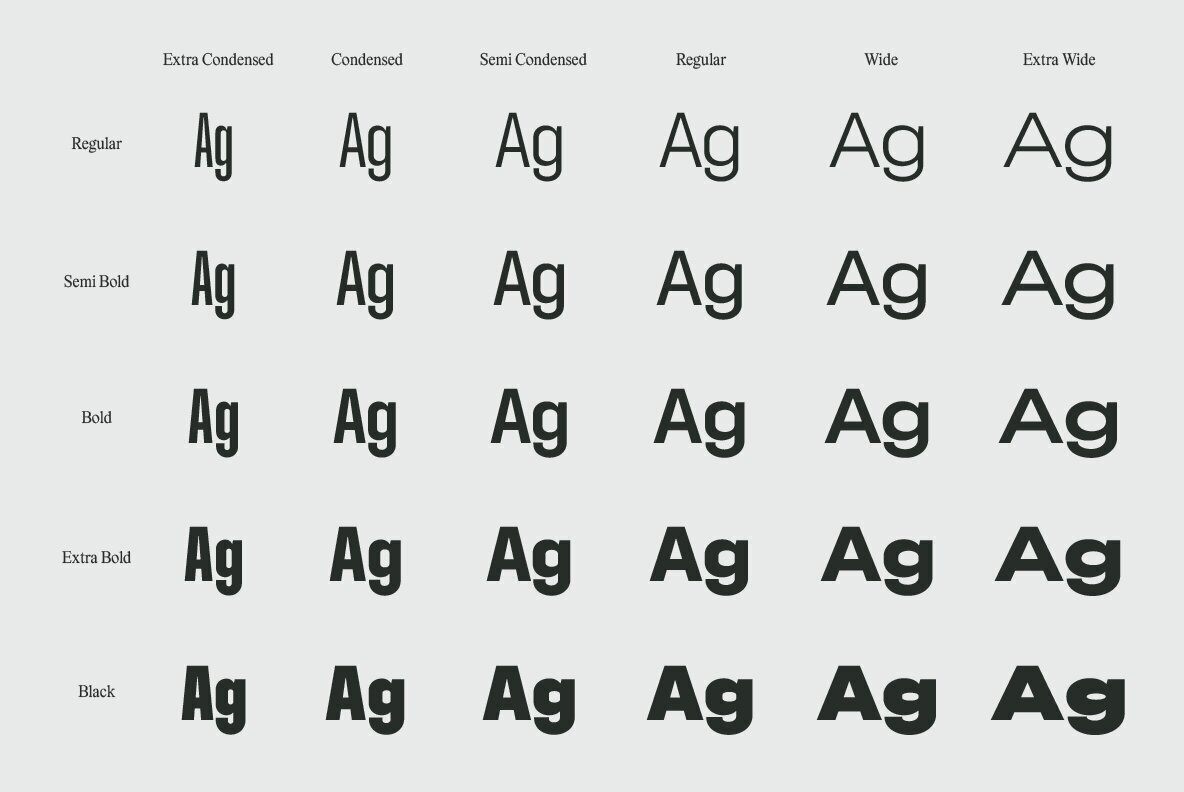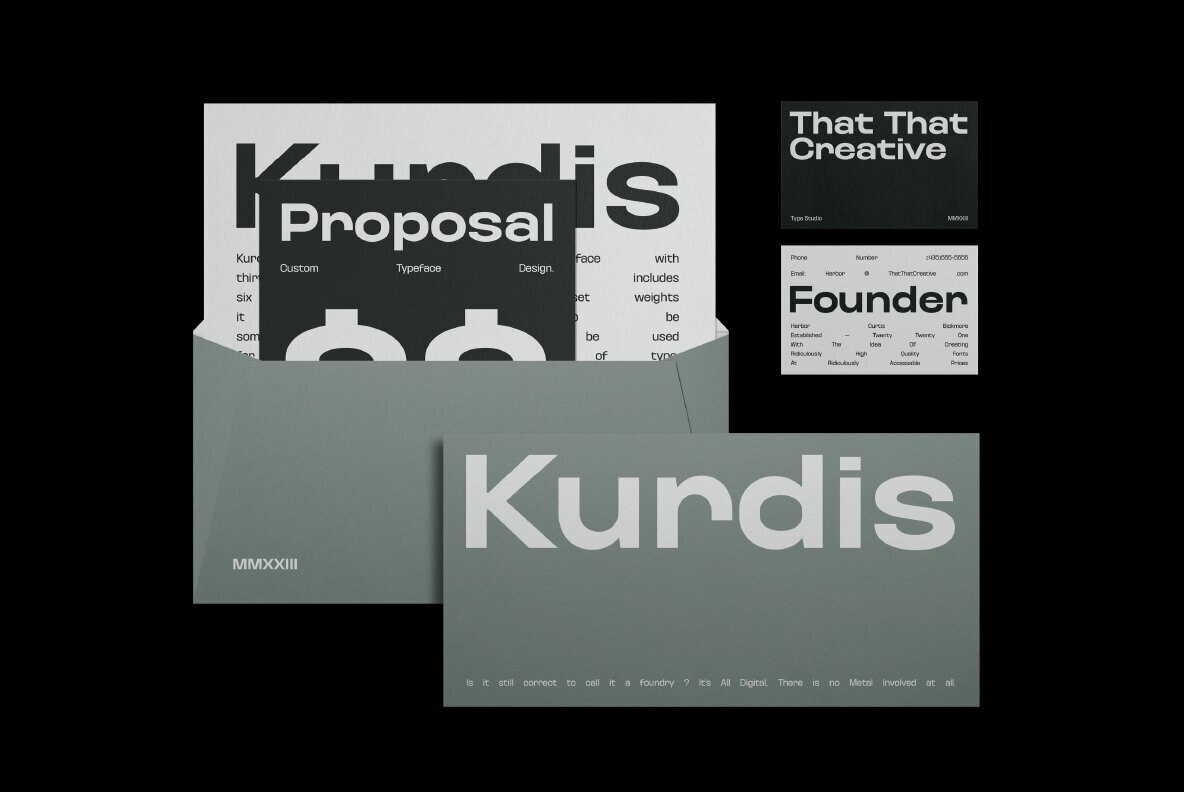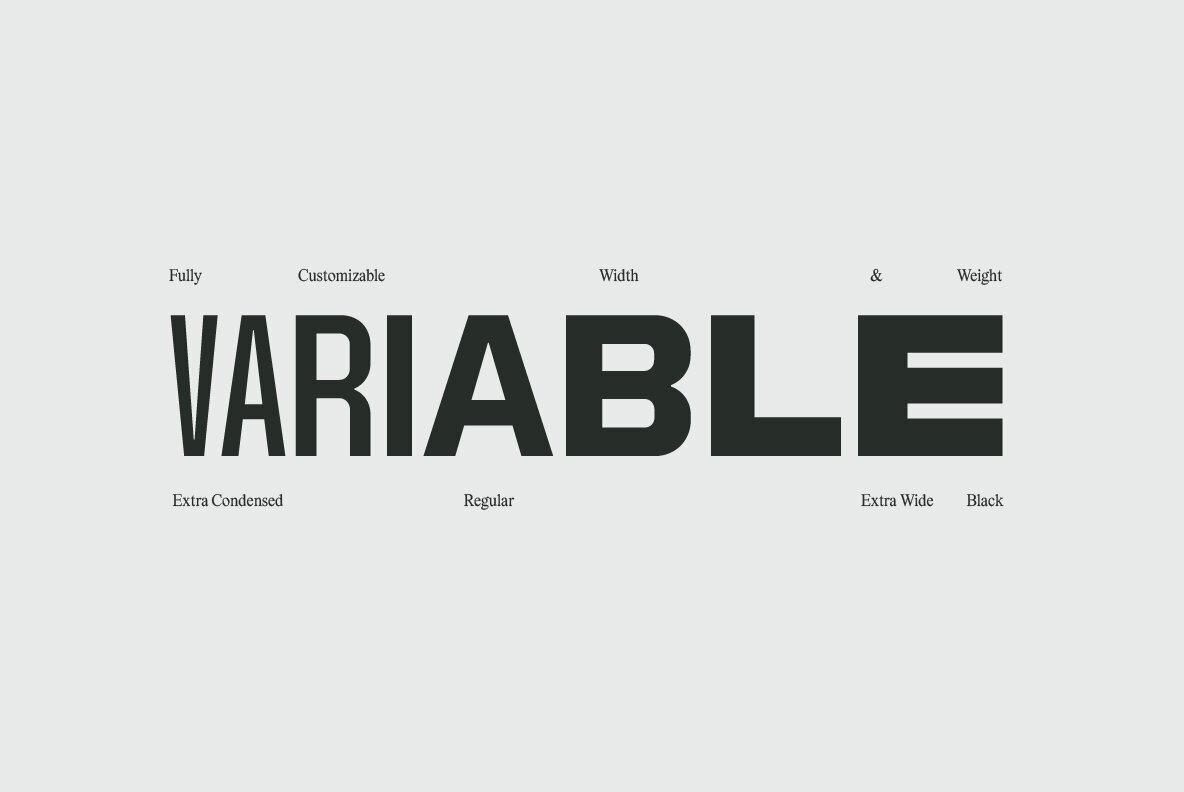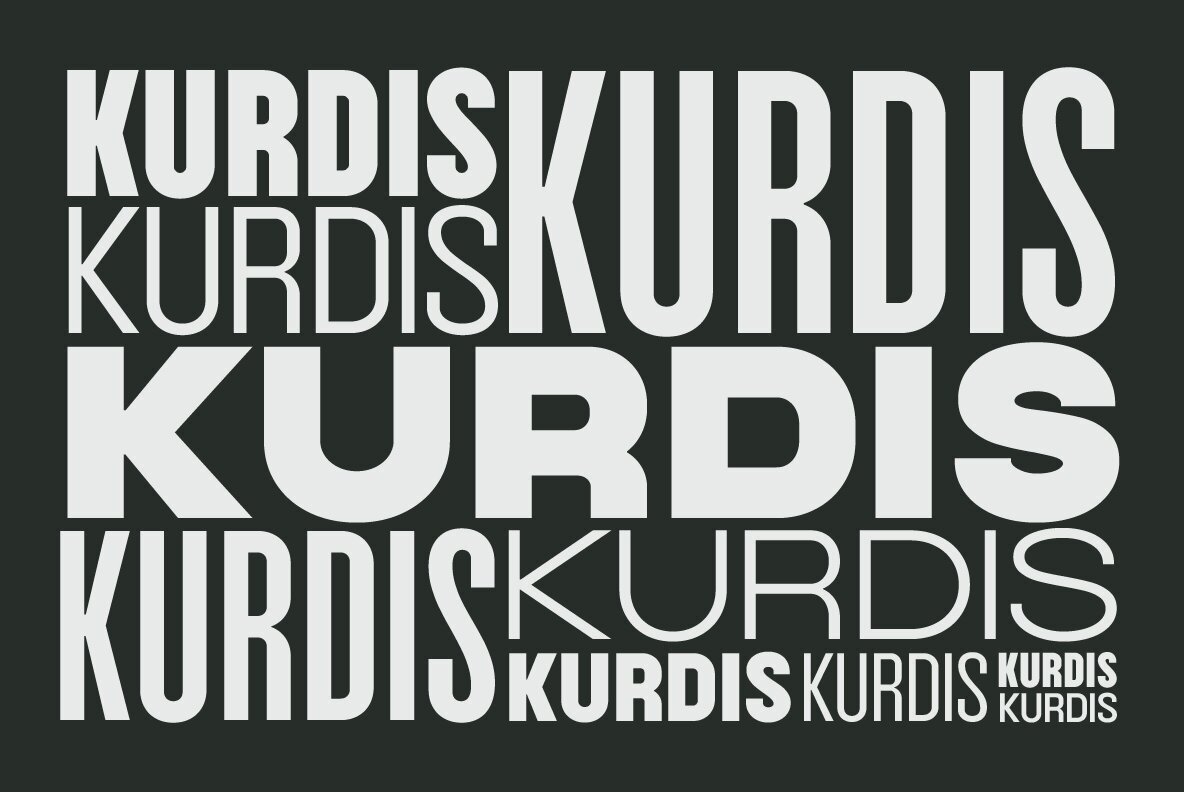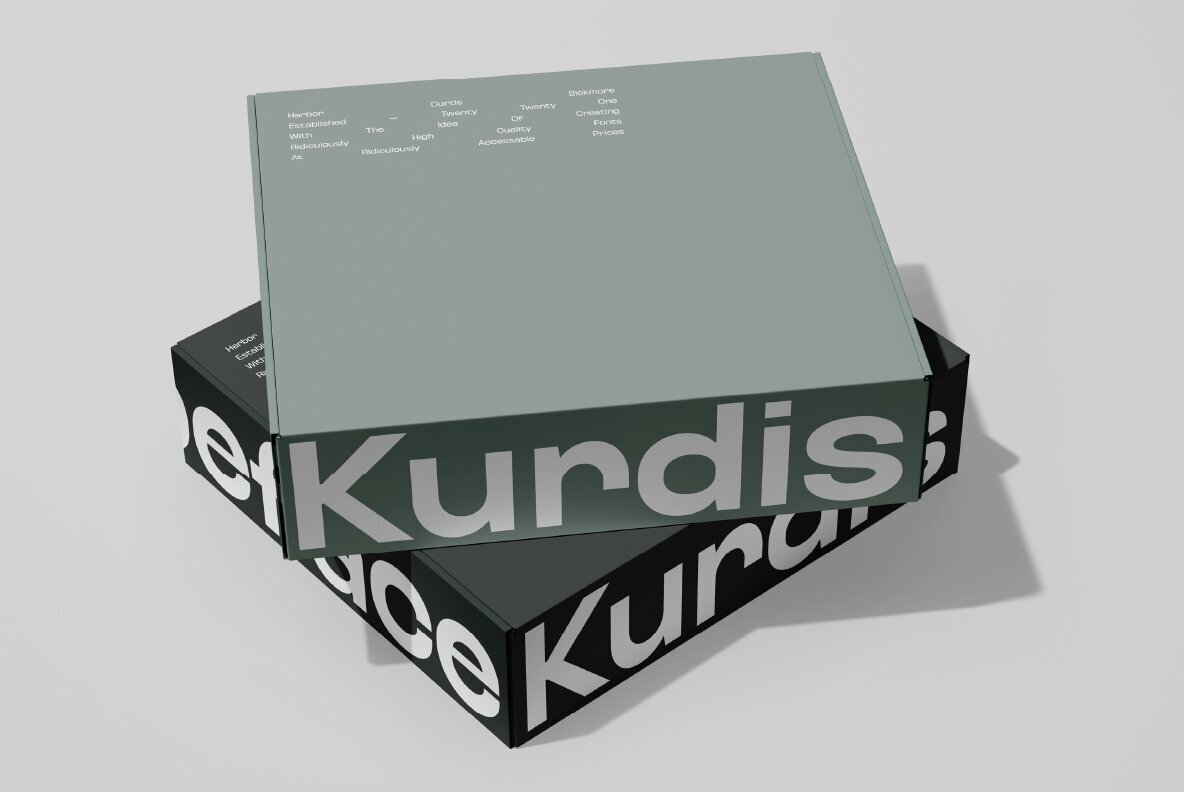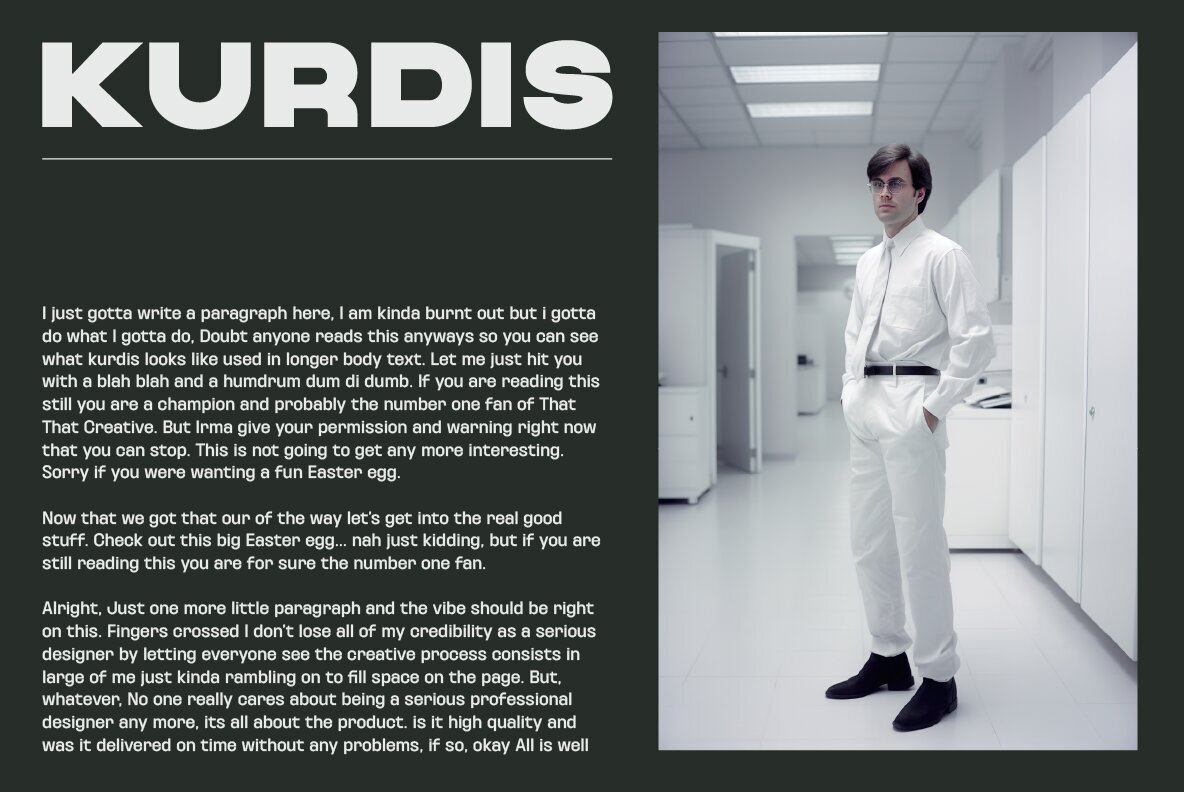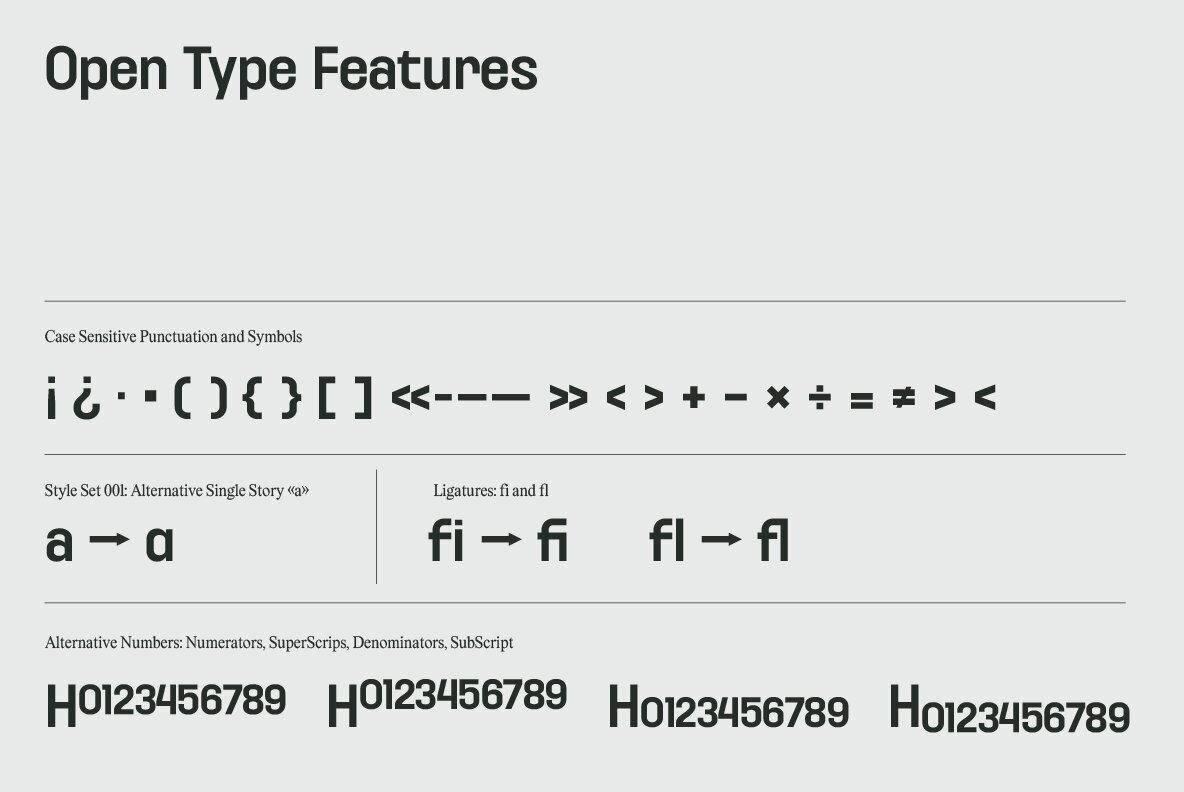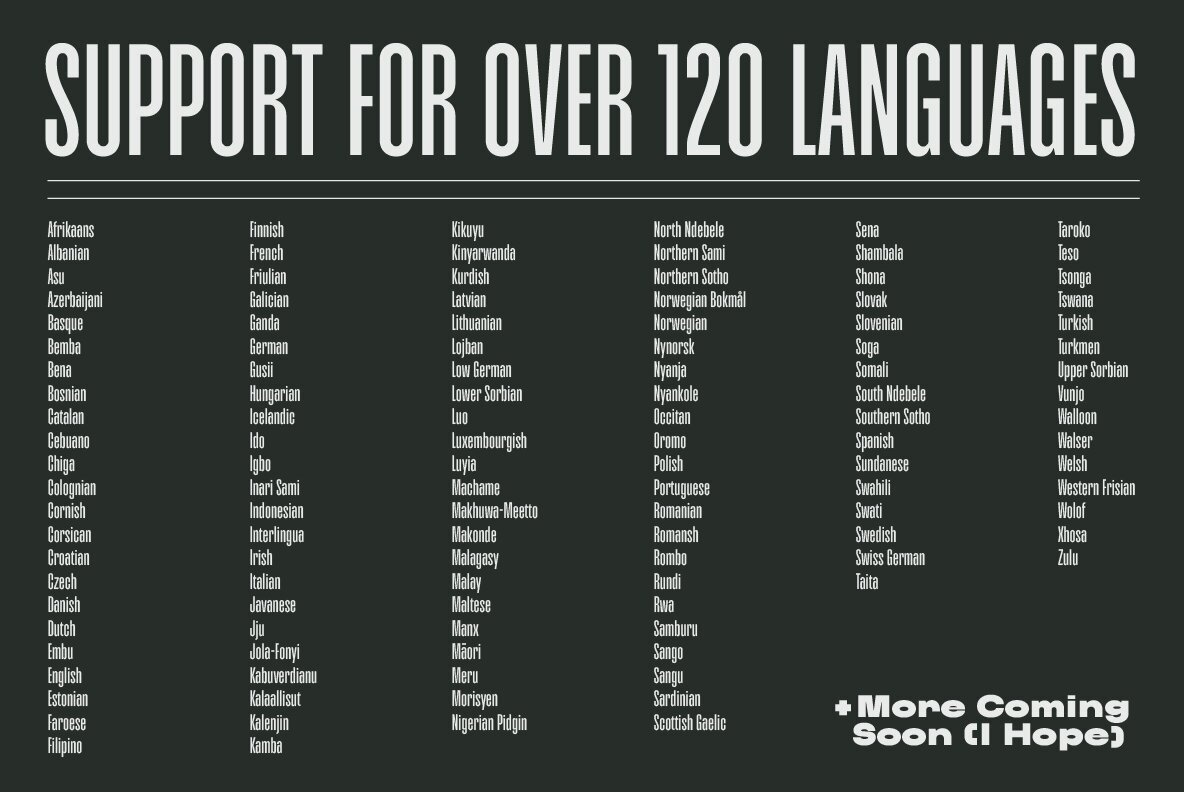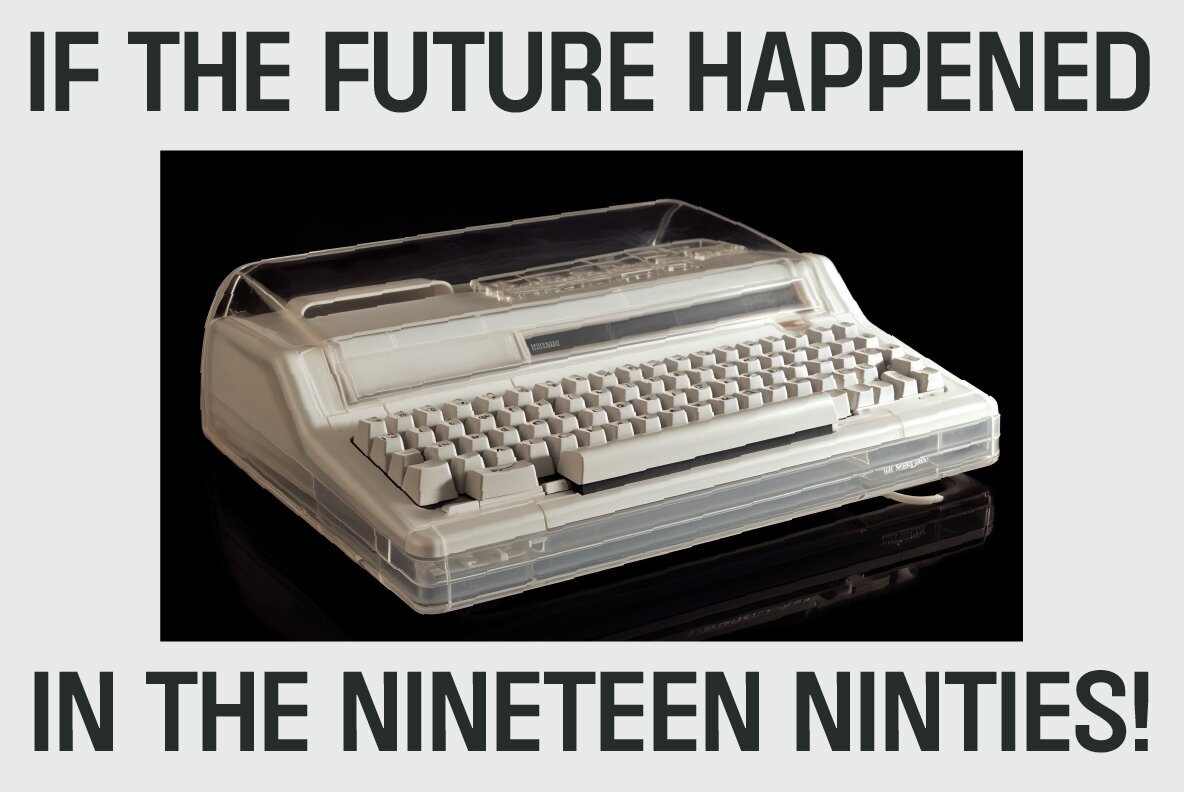
Kurdis Font Family
Kurdis Varibel Font Family is a modern sans serif family with **six widths** and **five Weights** Making 30 Set Styles and of course 10,000 more combinations when considering the Variable options. This Typeface is a real work horse for titles. At its condensed Width it is sophisticated and professional with well considered ink traps that help it really stand out at Large Sizes. the Regular width works well for longer bodies of text on websites or posters and the Wide Styles give an elevated look to your average wide sans serif. Font Includes: